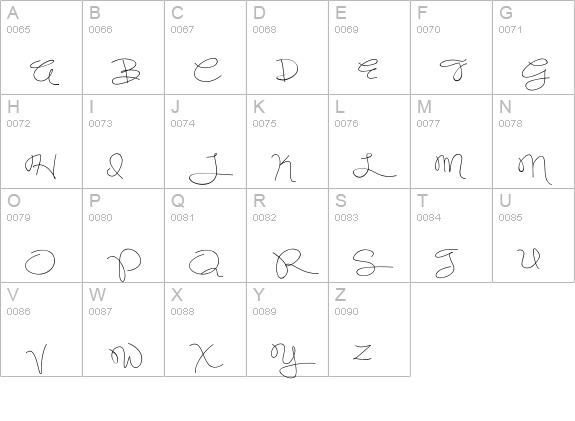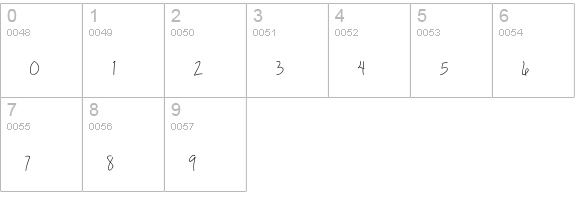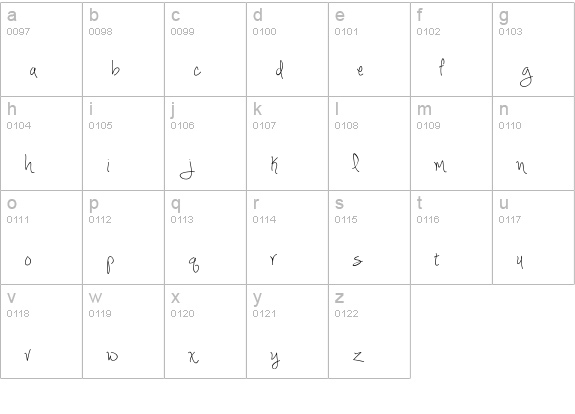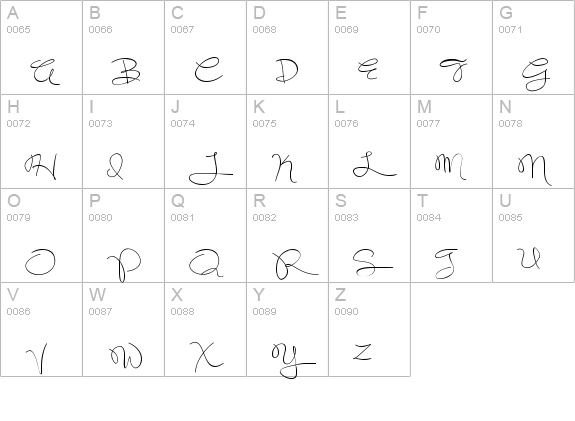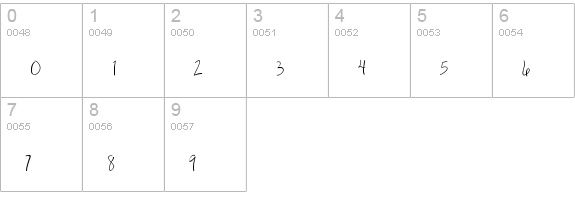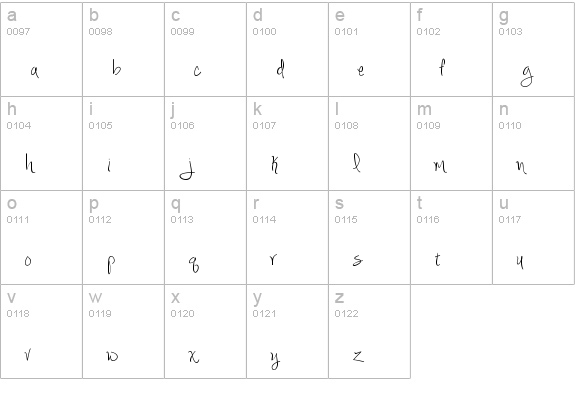
Simply*Glamorous Font Details
Introducing Simply*Glamorous, a font that exudes elegance and sophistication with every letter. This stunning typeface captures the essence of glamour, making it the perfect choice for any design project that requires a touch of luxury. Its sleek and stylish design will elevate your creations, whether you're designing logos, invitations, or branding materials. Simply*Glamorous is a true showstopper, with its perfectly crafted letterforms and impeccable attention to detail. Each curve and line has been meticulously designed to create a font that is both visually captivating and effortlessly legible. Its versatility allows it to be used in a wide range of design styles, from modern and minimalist to classic and ornate. But what truly sets Simply*Glamorous apart is that it is not only a stunning font, but it is also freely available to download at FontsMarket.com. Yes, you read that right – this font can be yours without spending a dime. FontsMarket.com is proud to offer this gem to designers and creatives who appreciate the beauty of typography and want to enhance their work with a touch of glamour. So, whether you're a professional designer or a hobbyist, Simply*Glamorous is a font that will elevate your projects and make them truly shine. Download it today from FontsMarket.com and experience the beauty and elegance of this remarkable typeface. Let Simply*Glamorous be the secret weapon in your design arsenal, adding a dash of glamour to every creation.